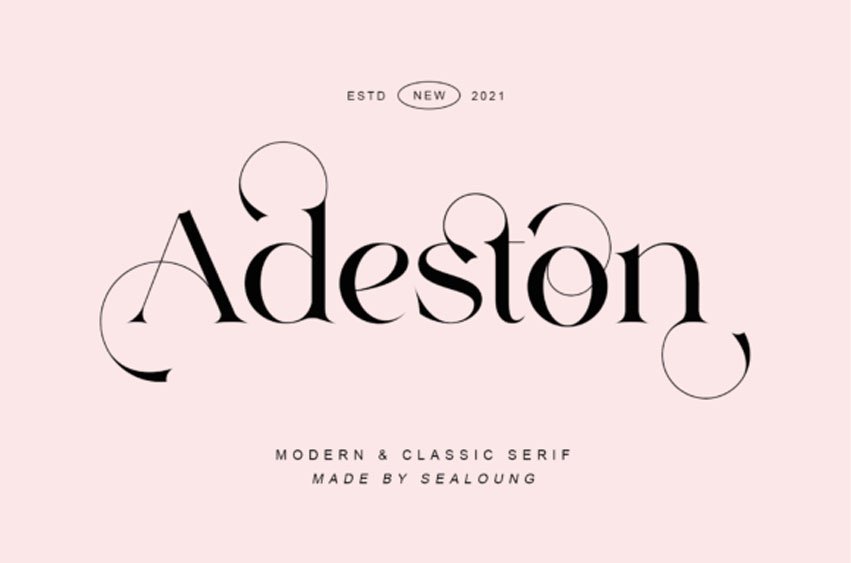
Adestone Font is a lovely and timeless serif font. It is the best choice for creating eye catching logos, branding and quotes.
Adestone is PUA encoded which means you can access all of the glyphs and swashes with ease!